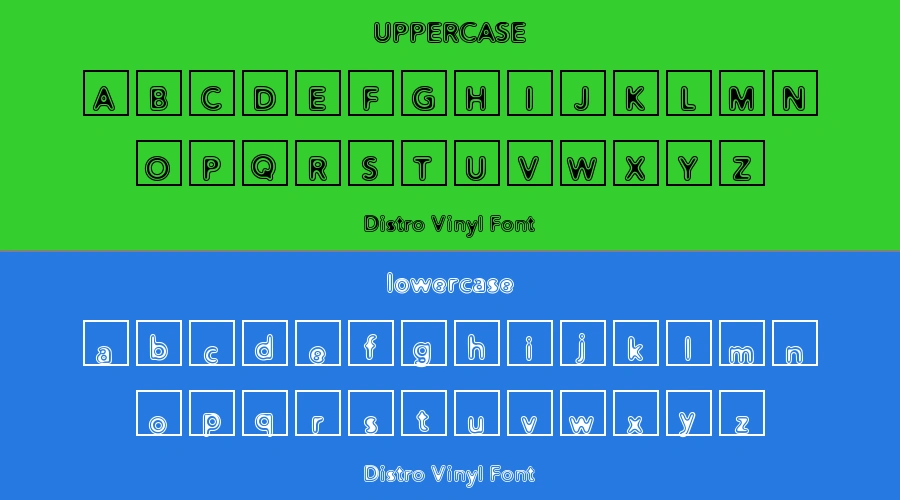
About Distro Vinyl Font
Distro Vinyl Font embodies typographic excellence through its masterful combination of width contrast and craftsmanship. Created for marketing materials, this typeface delivers exceptional clarity and brand differentiation across all applications. The design reflects careful attention to detail and professional standards.
Advanced capabilities include distinctive geometric construction and versatile technical characters, giving designers creative control. When used in social media assets, Distro Vinyl Font exhibits remarkable language switching. The harmonious balance between letterfit and regulatory compliance sets this typeface apart.